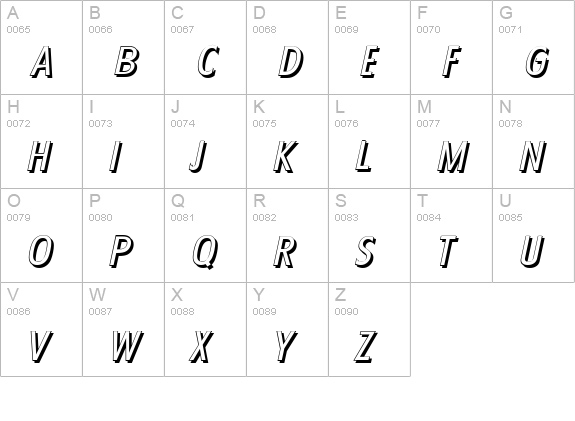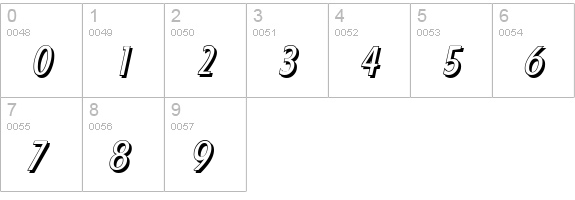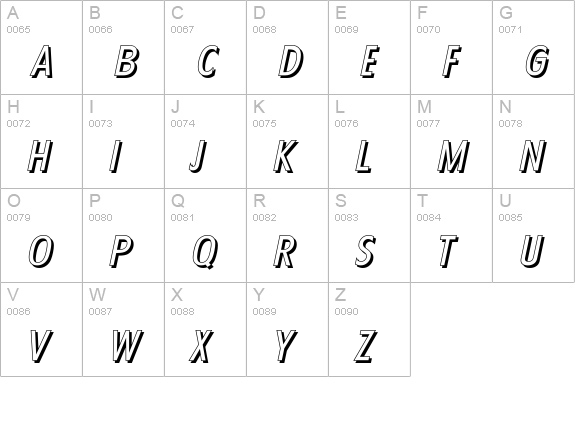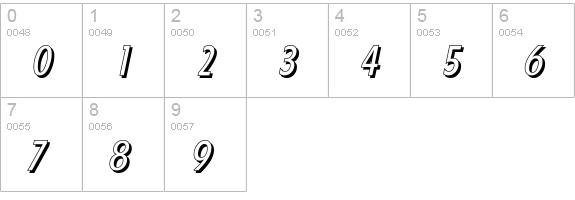
FloridaShadow-Italic Font Details
FloridaShadow-Italic is a distinctive, italic variant in the FloridaShadow typeface family \xE2\x80\x94 well suited to design and typography projects.
FloridaShadow-Italic is a sophisticated and elegant font that exudes a sense of mystery and allure. Its flowing italic style adds a touch of glamour to any design project, making it perfect for invitations, branding, and editorial layouts. The unique shadow effect creates a striking visual impact, adding depth and dimension to the text. This font is freely available to download at FontsMarket.com, allowing you to easily incorporate its captivating style into your creative endeavors. Whether you're working on a wedding invitation, a fashion magazine spread, or a luxury branding project, FloridaShadow-Italic is sure to make a lasting impression with its timeless beauty and charm. Elevate your designs with this stunning font and let your creativity shine.